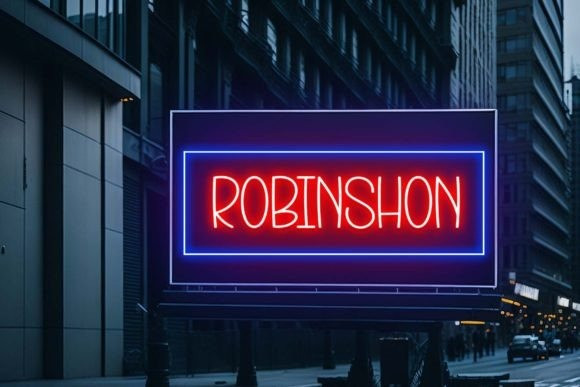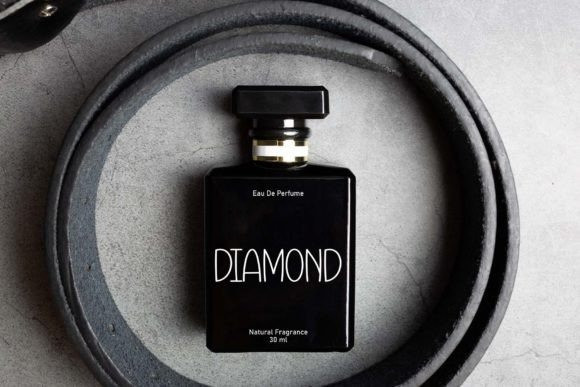
Neon Starlight Font
Neon Starlight Font is a sweet and friendly handwritten font. Versatile and cute, this font is ideal for writing wedding invitations, cards, or any other design that might need a fun touch!